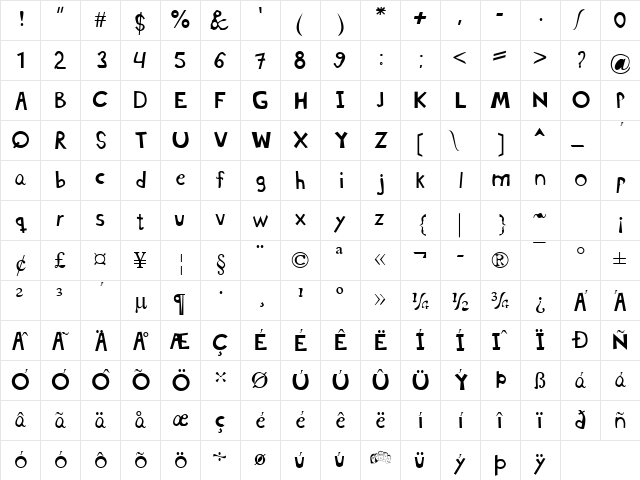
Torrini_decorative Regular
Torrini_decorative is built around its visual character rather than neutral utility — its distinctive forms are designed to make an impression at display sizes.
Font Pairing: Pair with a clean neutral sans-serif for body copy to let Torrini_decorative's character lead without overwhelming the composition.
Pro Tip: Treat Torrini_decorative as the centrepiece of your typographic hierarchy. One strong heading set in a decorative face can carry an entire layout.